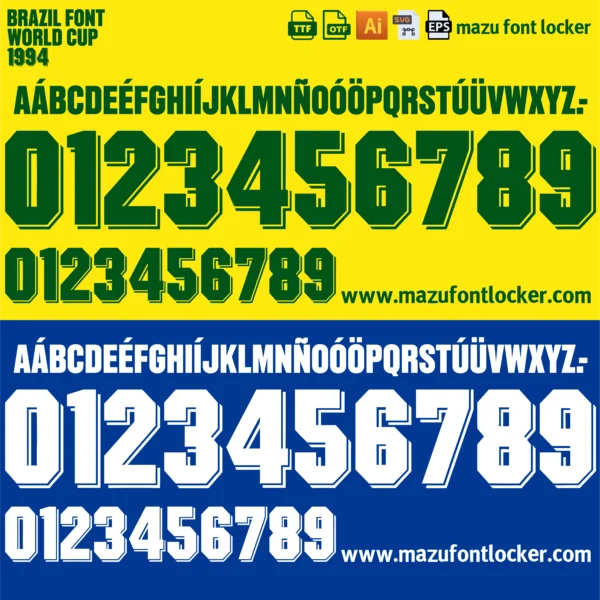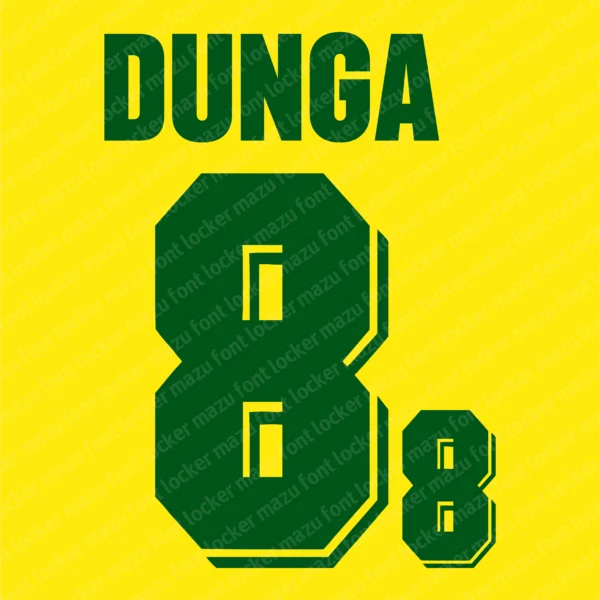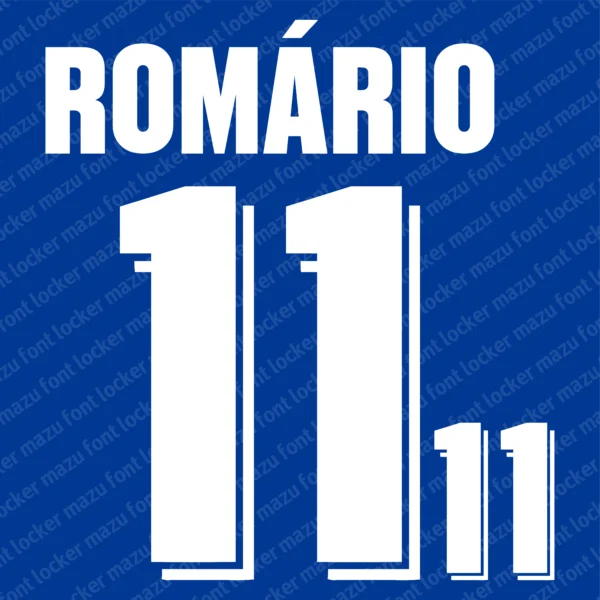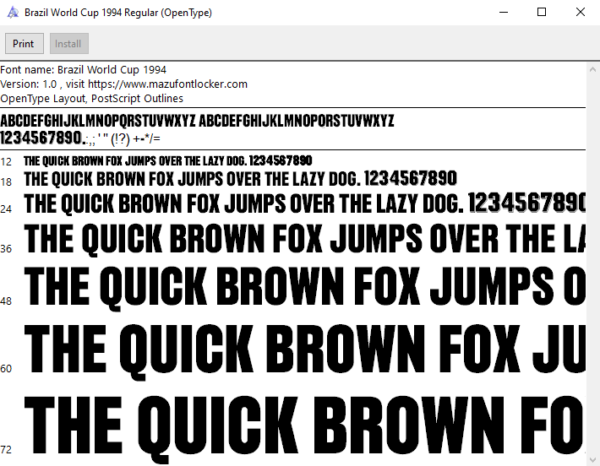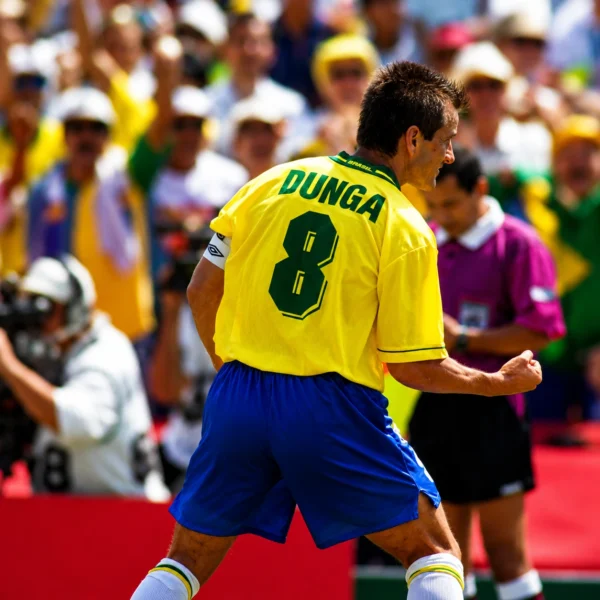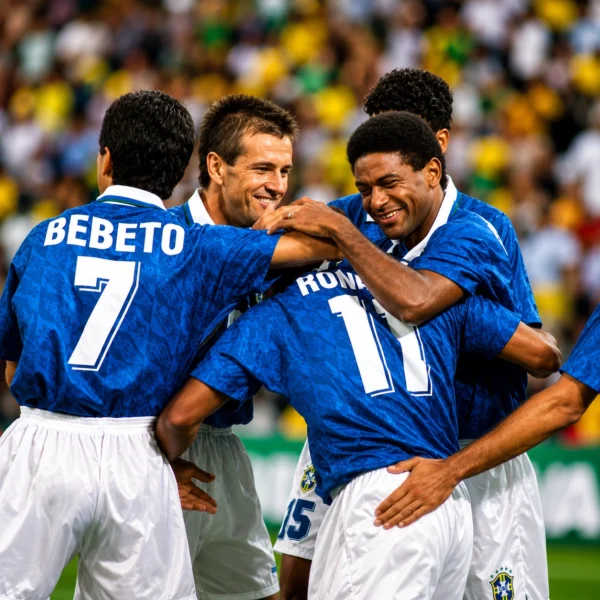
Brazil World Cup 1994 Font Vector – Legendary Yellow Canaries Champion Design
Brazil World Cup 1994 Font Vector – Authentic Seleção Typeface
The Brazil World Cup 1994 Font Vector is a premium typeface that accurately recreates the official match lettering worn by the Brazil national team during their victorious 1994 FIFA World Cup campaign. This high-quality vector font kit captures the bold, classic, and iconic typography that represents one of the most memorable World Cup triumphs in Brazilian football history.
Designed for professional designers and passionate Brazil fans, the Brazil World Cup 1994 Font Vector delivers perfect authenticity for creating realistic jersey mockups, fan merchandise, nostalgic posters, social media graphics, and championship celebration content. It pairs beautifully with the iconic yellow home kit featuring the famous CBF crest.
Why Choose Brazil World Cup 1994 Font Vector
This font stands out because of its sharp vector details and strong national identity. Every letter and number is crafted to match the exact style used on the players’ shirts during the 1994 World Cup winning campaign. Whether you are making realistic kit templates or nostalgic football content, the Brazil World Cup 1994 Font Vector gives your designs that authentic Seleção look.
The letterforms in the Brazil World Cup 1994 Font Vector are tall, bold, and highly readable. The strokes have a strong, clean weight with excellent edge definition that looks powerful on the back of jerseys while maintaining classic elegance and clarity.
- Full uppercase A–Z and numbers 0–9 in authentic Brazil 1994 style
- Special CBF crest glyph for accurate shirt number detailing
- Multilingual Latin character support including diacritics
- Create highly realistic Brazil World Cup 1994 home and away jersey mockups with accurate lettering
- Design stunning nostalgic posters, score graphics, and squad announcements
- Produce custom Brazil national team merchandise with the classic 1994 aesthetic
- Includes the exact crest glyph placement used under player numbers
Brazil World Cup 1994 Campaign
Under the management of Carlos Alberto Parreira, Brazil won the 1994 FIFA World Cup in the United States, defeating Italy in the final on penalties. Led by stars such as Romário, Bebeto, Dunga, Taffarel, and Mauro Silva, the Seleção claimed their fourth World Cup title with a solid and disciplined style that brought glory back to Brazil after 24 years.
The Brazil World Cup 1994 Font Vector is an independently designed typeface package. It is carefully crafted to replicate the official shirt lettering style of the 1994 World Cup campaign. This font kit is perfect for creative projects, fan edits, nostalgic jersey designs, and custom football graphics.